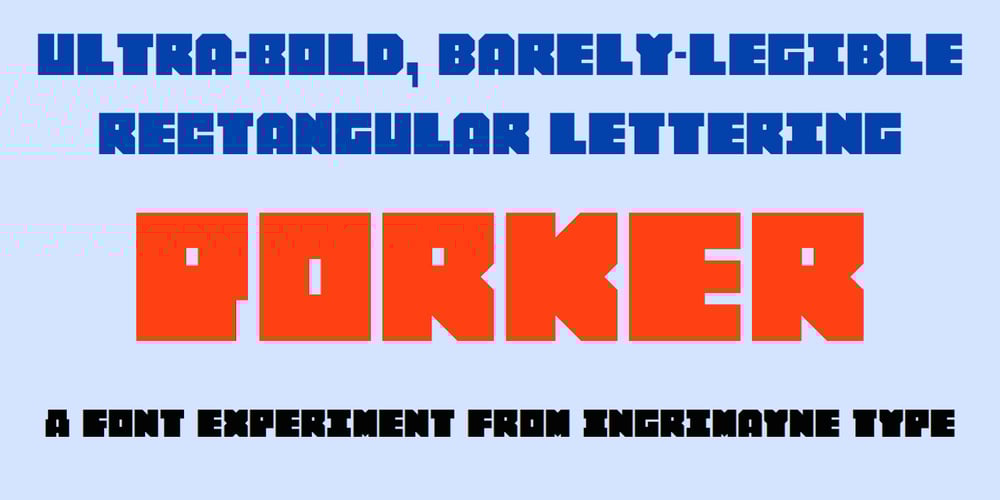
Porker Font Family was designed by Robert Schenk and published by Ingrimayne Type. Porker contains 4 styles and family package options. Porker was an experiment in making a barely readable but very simple and very bold typeface with no curves. It is caps only with some of the letters on the lower-case keys giving alternate versions. Include are three variants, a tall version, a striped version, and a randomized version. The striped version can be placed in a layer above the regular version to give two-colored letters.